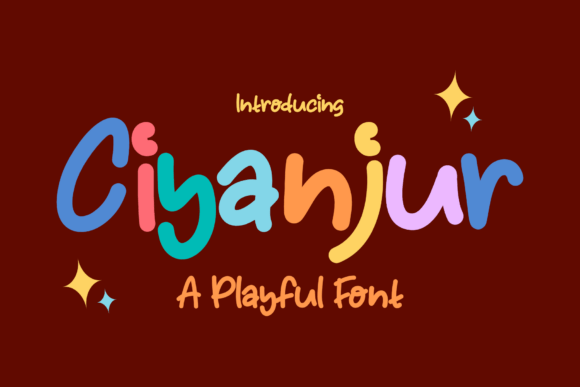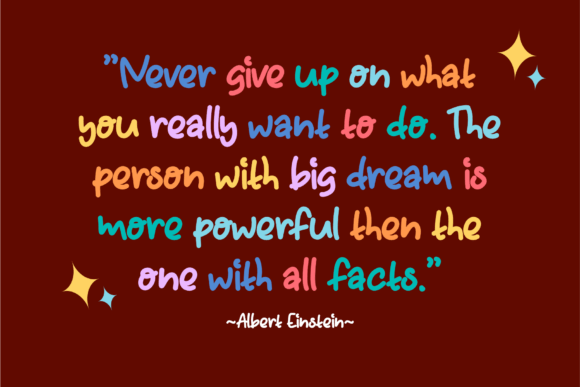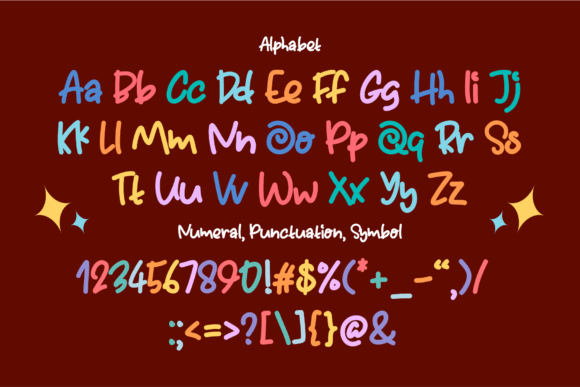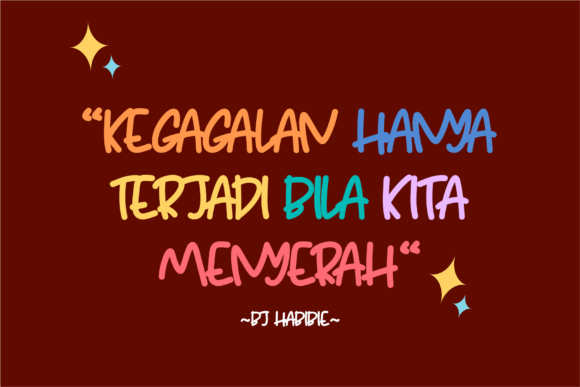
Unleash Your Creativity with Ciyanjur Font
Have you ever been scrolling through a beautifully designed social media post, and suddenly, you’re inspired to create something of your own? Maybe it’s a quirky illustration, a handwritten quote, or a vibrant logo – whatever it is, the spark of creativity has ignited within you. As a designer, you know that the right font can make all the difference in bringing your ideas to life.
Enter Ciyanjur Font, a charming handwritten font designed to add a personal touch to your creative endeavors. Whether you’re working on product packaging, branding projects, or magazine layouts, Ciyanjur Font effortlessly infuses vitality and vibrancy into your designs. This delightful font is perfect for crafting, stickers, t-shirts, mugs, and logos, making it a valuable addition to any designer’s toolkit.
Ciyanjur Font Key Features
- Font Family: Ciyanjur is a unique, hand-drawn font designed to evoke the charm of traditional Indonesian typography.
- Character Set: Includes a comprehensive set of characters, including Latin, Cyrillic, and Greek alphabets, as well as a range of diacritical marks and symbols.
- Size: The font family includes 6 weights (Thin, Light, Regular, Medium, Bold, Black) to cater to various design needs, each with its unique characteristics.
- Resolution: Optimized for use at high resolutions, making it suitable for print and digital applications, including signage, branding, and publishing.
- Unique Characteristics: The Ciyanjur font features intricate details, subtle texture, and a sense of organic, hand-crafted quality, setting it apart from more modern and digital fonts.
Ciyanjur Font Review
I recently had the chance to work with the Ciyanjur Font, and I must say, it’s a unique and intriguing addition to my design toolkit. ✨
- The Ciyanjur Font’s distinctive script-like flair adds a touch of elegance and sophistication to any design. ✨
- The font is well-suited for titles, headings, and other high-impact text elements. ✨
- The font’s versatility makes it suitable for a wide range of design projects, from branding to publishing. ✨
- ⚠️ The font’s script-like style can be challenging to read at small font sizes or in low-contrast environments.
- ⚠️ The font’s overall aesthetic may not be to everyone’s taste, and some users may find it too ornate or distracting.
Overall, I found the Ciyanjur Font to be a solid addition to my design arsenal. While it may not be suitable for every project, its unique flair and versatility make it a valuable tool for designers looking to add some visual interest to their work. With proper use and consideration of its limitations, the Ciyanjur Font can help take designs to the next level.
Getting the Most Out of Ciyanjur Font
To get the most out of Ciyanjur font, try the following tips:
– Use it in combination with bold or italic text for added emphasis.
– Experiment with different font sizes to create visual hierarchy.
– Use the font in conjunction with other design elements, such as images and shapes, to create a cohesive design.
Ciyanjur font is ideal for:
– Headings and titles in graphic designs.
– Body text in documents and presentations.
– Logos and branding materials.
Alternatives to Ciyanjur Font for Designers
Ciyanjur Font is a popular script font used for various design projects. However, there are several alternatives available that offer unique characteristics and usage scenarios. Here are a few options:
1. Alex Brush
Alex Brush is a elegant script font that is ideal for wedding invitations, greeting cards, and other creative projects. It has a more refined and sophisticated look compared to Ciyanjur Font, making it suitable for high-end designs.
Yes, Ciyanjur Font is available in multiple weights, including light, regular, medium, bold, and extra bold. It also comes in italic and bold italic styles, offering designers a range of options to achieve the desired visual effect.